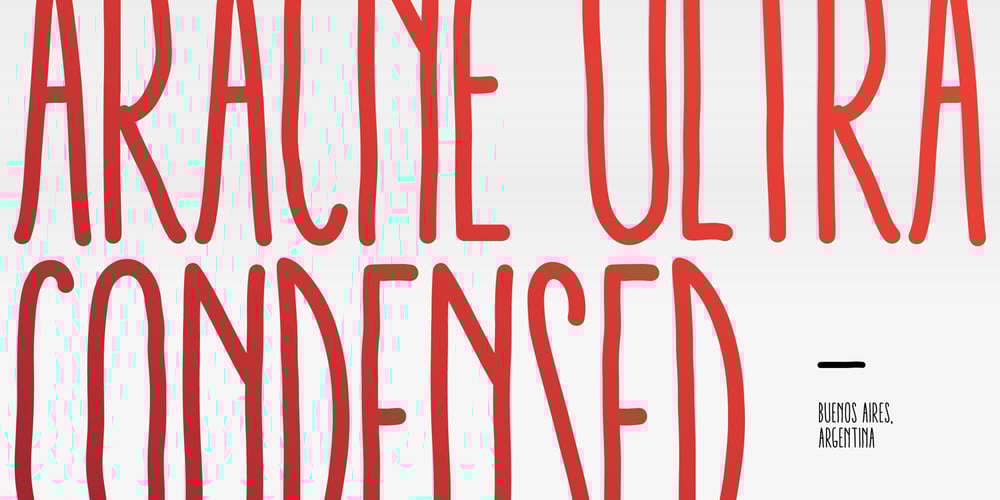
Aracne Ultra Condensed
Aracne Ultra Condensed font
Aracne Ultra Condensed Font Family was designed by Julia Martinez Diana and published by Antipixel. Aracne Ultra Condensed contains 12 styles and family package options. The all-caps Aracne collection features tall, slightly scrawled letterforms, and is available in regular, condensed and ultra condensed styles for maximun functionality. With a spiritted quality and casual character, it will add a personal style to your work. Aracne Ultra Condensed was created as an extended version of the font Aracne, a regular full of energy handwritten font, with light and regular styles, including italics. It provides a wide range of possibilities, including the Aracne Soft and Stamp, which offer softer and cleaner edges. Its glyph coverage supports languages such as English, Spanish, French, German, Polish, Czech, among many others. It’s recommended usage is for display titles, and small ammount of text, because of its good legibility and quality of glyphs. Check out her sisters Aracne and Aracne Condensed!